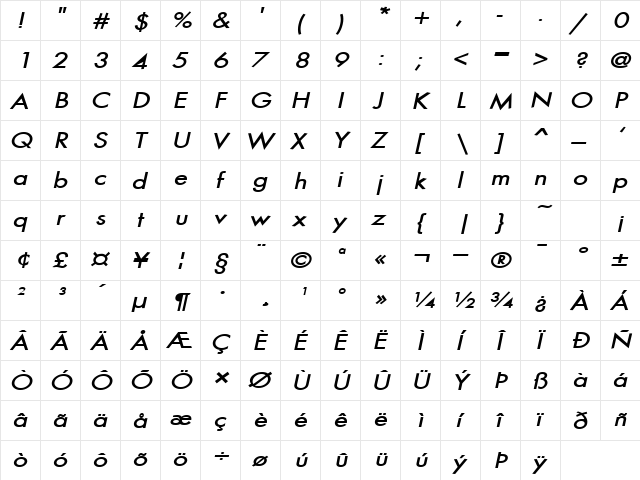
Beau-Extended Bold Italic Font Preview
Design Context for Beau-Extended Typeface
Beau-Extended takes a measured approach to typography — its balanced proportions and neutral character make it a reliable workhorse for both digital and print work. The dynamic lean of this cut emphasises speed and emphasis in any layout. The heavy weight commands attention and anchors typographic hierarchies.
Pro Tip: Use Beau-Extended for emphasis, pull quotes, and subheadings where its slanted energy can add rhythm to the layout.